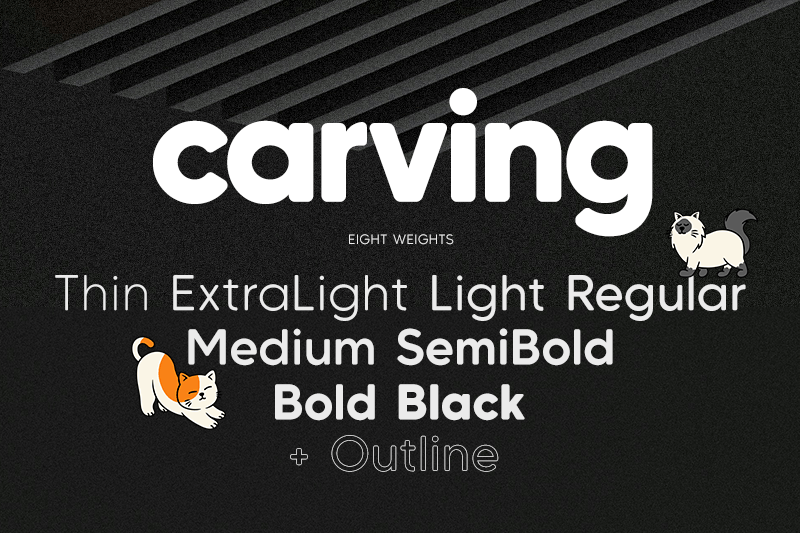
Font name: | MADE Carving Soft |
Author: | MadeType |
MADE Carving Soft is a soft & modern sans serif typefamily. https://www.behance.net/madetype ---- NOTE: THIS FONT IS FOR PERSONAL USE ONLY! ---- BUY FOR COMMERCIAL USE: Contact me at madetypeinfo@gmail.com before commercial using it. ---- If you have any questions, you can contact us by email: madetypeinfo@gmail.com |